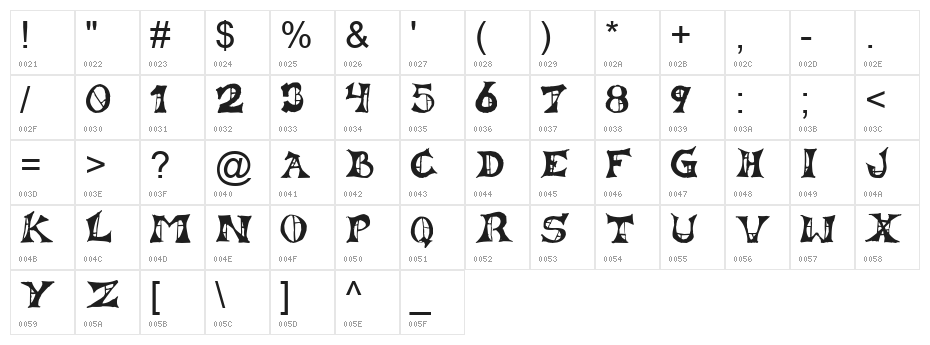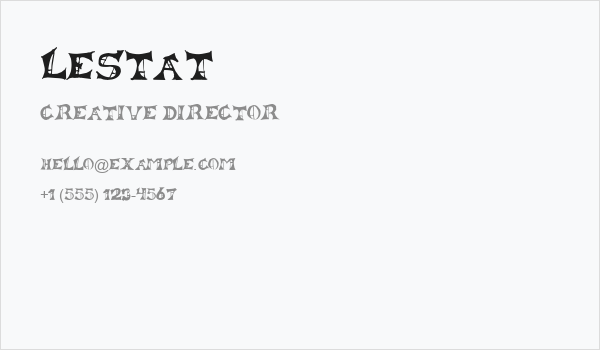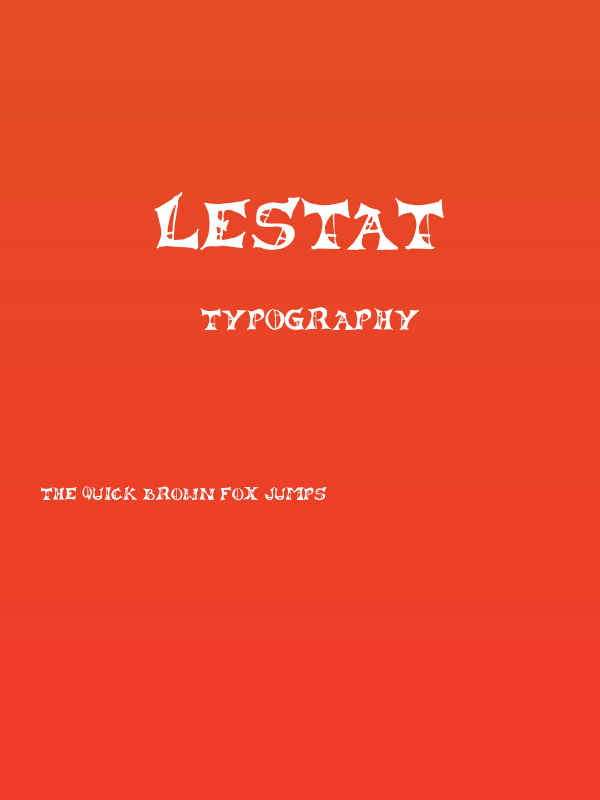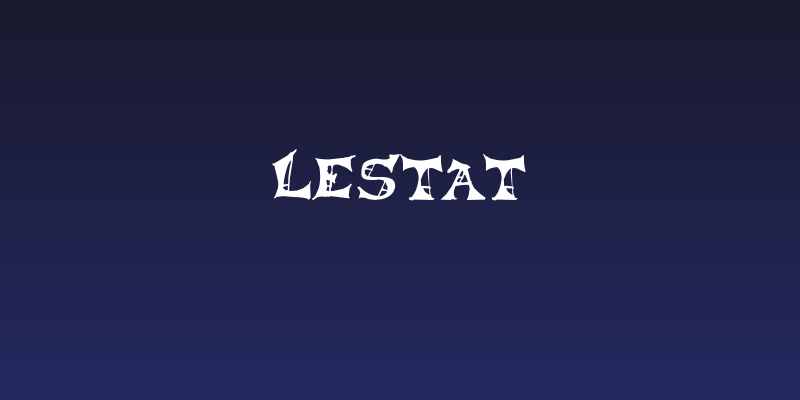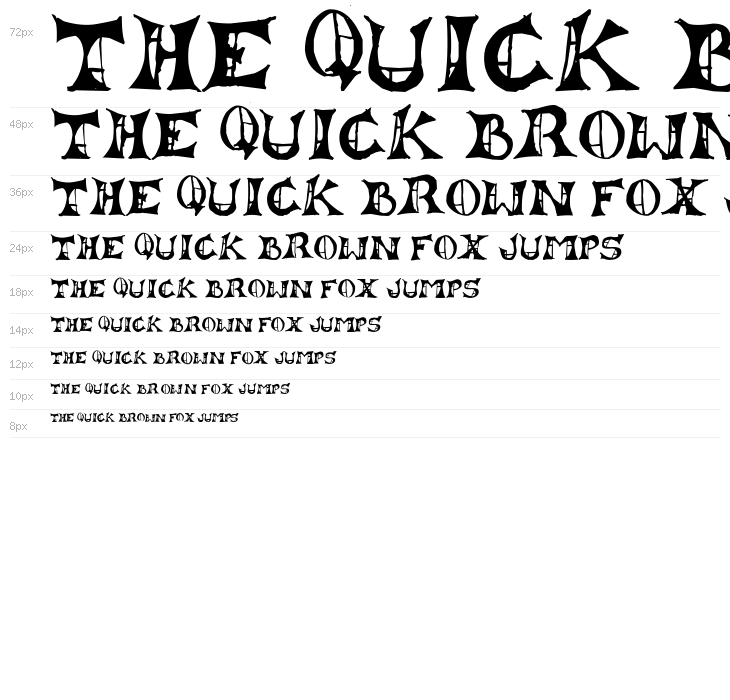
Lestat Font
Lestat Description
This font exhibits a bold and dramatic style with sharp, angular edges and a gothic flair. The characters are heavily stylized, featuring pointed serifs and intricate details that give them a unique, almost medieval appearance. The uppercase and lowercase letters maintain a consistent design, with a strong emphasis on vertical strokes and decorative elements that enhance their visual impact. The numerals and special characters follow the same aesthetic, ensuring a cohesive look across all glyphs. This font is ideal for projects that require a striking and memorable typeface.
| Overall Style | Gothic, Decorative |
| Proposed Projects | Perfect for horror-themed posters, gothic book covers, Halloween invitations, and branding for edgy or alternative products. |